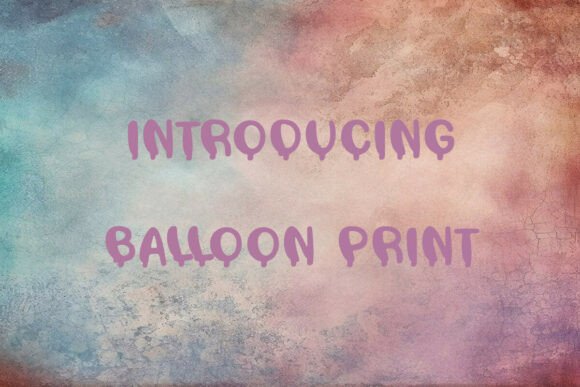
The Perfect Font for Your Next Creative Project
You’ve spent hours brainstorming the perfect design concept, pouring over color palettes and typography options. But then, it happens – you land on the perfect font that brings your vision to life. This is the moment every designer dreams of, and with the right font, it’s a feeling that’s hard to beat. For those seeking to elevate their creative projects, there’s one font that stands out from the rest: Balloon Print Font.
Designed to add a touch of sophistication and whimsy to any design, Balloon Print Font is the ultimate go-to for designers looking to make a statement. Whether you’re crafting branding materials, designing chic shirts, or creating eye-catching stickers, this versatile font ensures you stand out in a crowded market. Its professional flair makes it perfect for social media, poster design, and even magazine layouts.
Key Features of Balloon Print Font
- Unique Characteristics: The Balloon Print Font features a distinctive, hand-drawn design with a playful, whimsical feel, making it perfect for creating eye-catching and memorable designs.
- Legibility: Despite its decorative appearance, the font remains highly legible, even at smaller sizes, ensuring that your message is conveyed effectively.
- Style Variations: Includes multiple style variations, such as regular, bold, italic, and bold italic, to provide versatility and flexibility in design applications.
Designer Review: Balloon Print Font
Overall, I think the Balloon Print Font is an interesting and quirky addition to any design project. ✨ It’s great for creating a playful and whimsical atmosphere, which can be perfect for children’s books, party invitations, or even advertisements for fun and lively products. The font’s irregular shape and varying line thickness add to its charm and make it stand out from more traditional fonts.
One of the things I like about this font is its versatility. It can be used in a variety of contexts, from casual to more formal designs. ✨ However, I do think it’s best suited for projects that require a lighthearted and carefree tone, as it may not be the best choice for more serious or professional designs.
Here are some pros and cons to consider:
- ✨ Unique and eye-catching design
- ✨ Versatile and can be used in various contexts
- ⚠️ May be too playful for more serious designs
- ⚠️ Can be difficult to read at small font sizes
Overall, I think the Balloon Print Font is a fun and creative option for designers looking to add some personality to their projects. While it may not be the best choice for every design, it’s definitely worth considering for projects that require a lighthearted and playful tone.
Tips for Getting the Most Out of the Balloon Print Font
To get the most out of the Balloon Print Font, consider the following tips:
- Use it in bold, playful designs to create a whimsical feel.
- Pair it with bright, contrasting colors to make it stand out.
- Experiment with different font sizes and styles to create visual interest.
The Balloon Print Font is perfect for:
- Children’s party invitations and decorations.
- Playful advertisements and marketing materials
Alternatives to Balloon Print Font
1. Bubblegum Sans
Bubblegum Sans is a playful, rounded font that resembles the aesthetic of Balloon Print Font. It’s perfect for creating a whimsical and youthful feel in designs, especially for children’s products or entertainment brands. Compared to Balloon Print Font, Bubblegum Sans has a more refined and polished look.